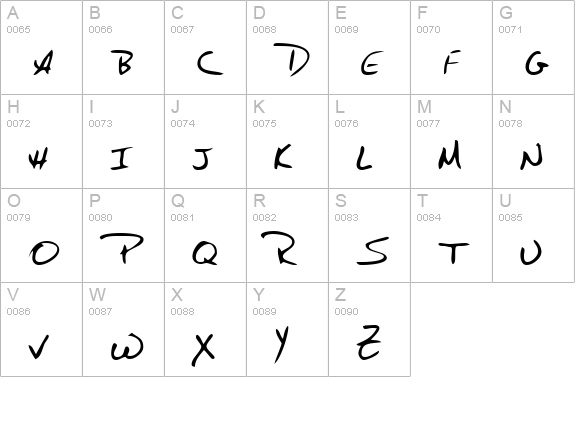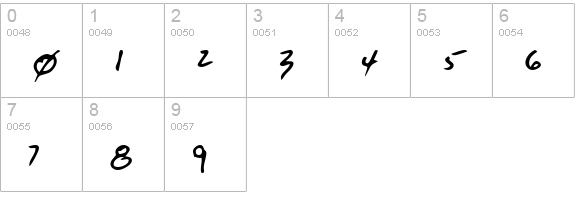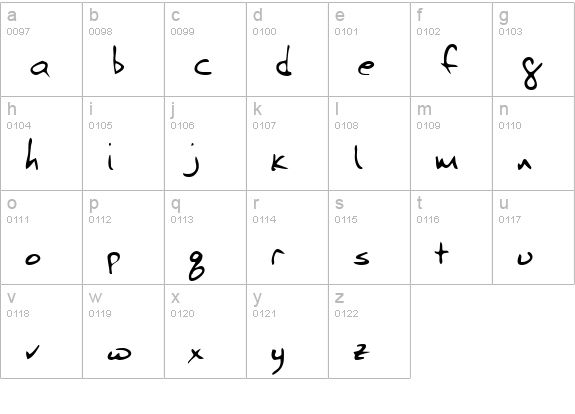
BudsHand Regular Font Details
BudsHand Regular is the standard, neutral variant in the BudsHand typeface family \xE2\x80\x94 well suited to general body text, paragraphs, and standard typographic work.
BudsHand Regular font is a charming and whimsical typeface that exudes a sense of friendliness and warmth. Its playful curves and handwritten style make it perfect for a variety of creative projects, from invitations to branding to social media graphics. This versatile font is ideal for adding a personal touch to any design. What's even better is that BudsHand Regular font is completely free to download at FontsMarket.com. Yes, you read that right - you can get your hands on this delightful font at no cost at all! So why wait? Add a touch of creativity and personality to your projects with BudsHand Regular font today.